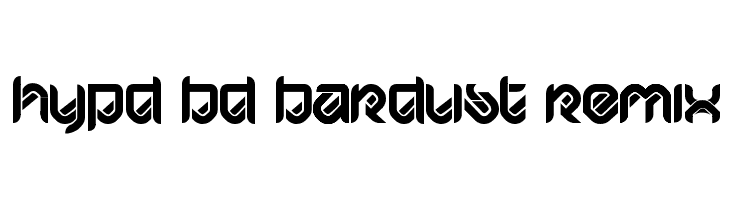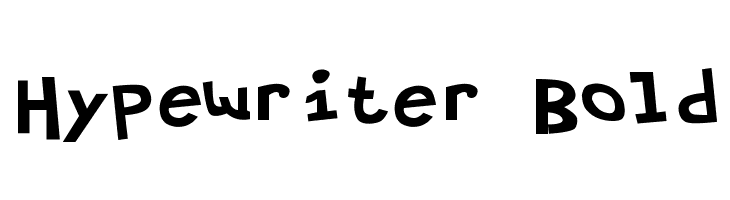
A bold, flame-inspired font with dramatic, fiery extensions.
A bold, geometric font with sharp angles and a modern style.
A bold, handwritten font with a playful and informal style.
A bold, playful, hand-drawn font with thick, rounded characters.
A jagged, thorn-like decorative font with sharp, elongated strokes.
A modern serif font with clean lines and balanced proportions.
A dynamic and fluid script font with a cursive, handwritten style.
A sophisticated script font with elegant, flowing letters and ornate details.
A decorative font with bee and flower motifs encasing each character.